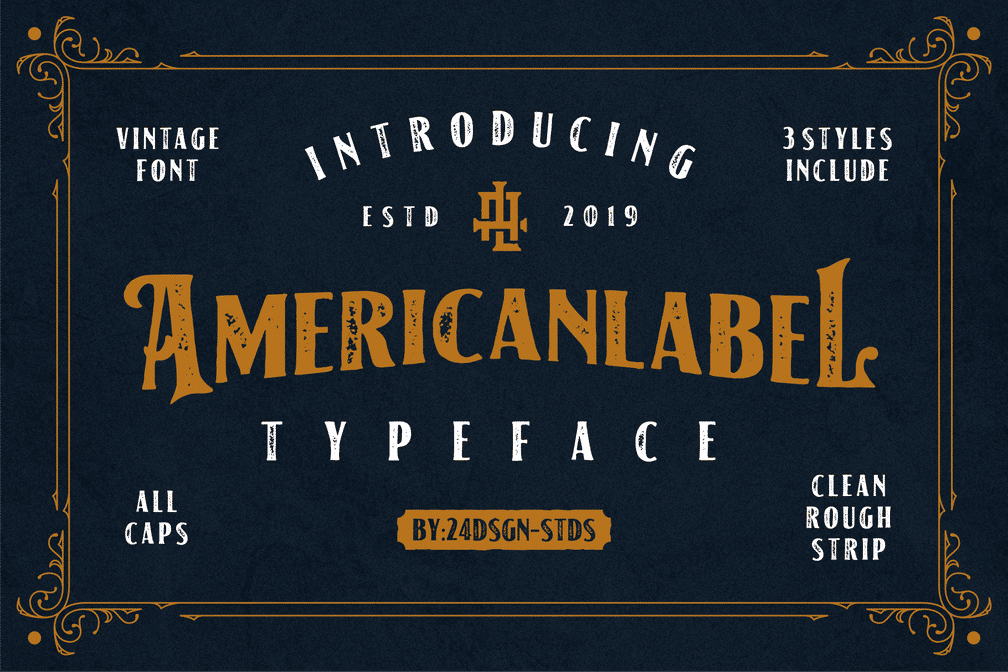
American Label Vintage Typeface
AmericanLabel is typeface vintage font. It’s masculine style makes it perfect for logos, typography, and product labels that require a classic and masculine touch.
AmericanLabel available in 3 styles, clean, rough (textured) and striped.